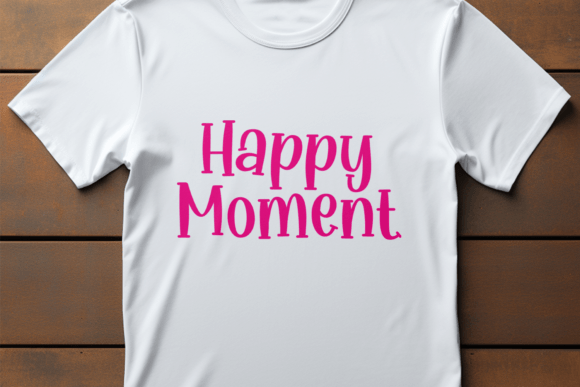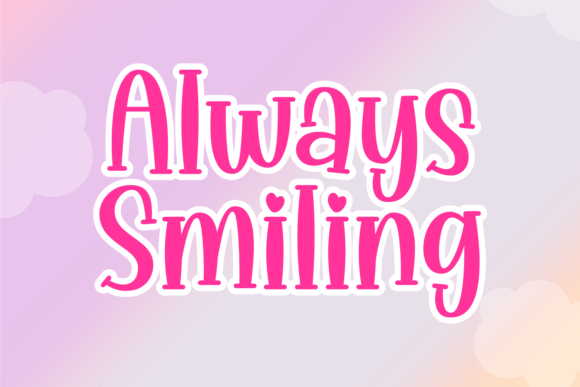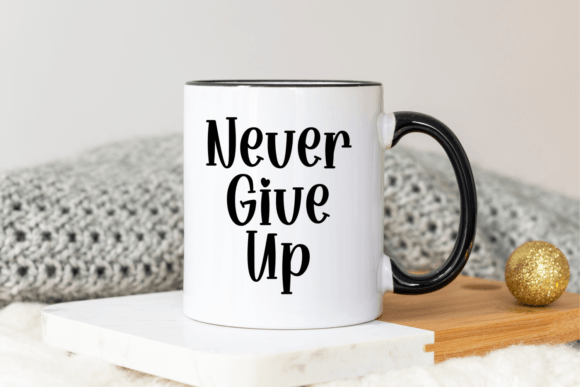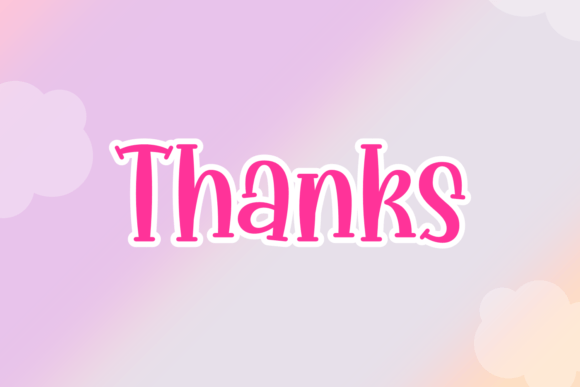
Introducing Beloved Herlynes Font: A Playful Handwritten Typeface for Creative Projects
Are you a designer, crafty person, or DIY enthusiast looking for a unique and playful font to elevate your creative projects? Look no further than the Beloved Herlynes font, a charming handwritten typeface that’s perfect for a wide range of applications. In this article, we’ll explore the features and benefits of Beloved Herlynes, and show you how it can help take your designs to the next level.
What is Beloved Herlynes Font?
Beloved Herlynes is a carefully crafted handwritten font that’s designed to add a touch of playfulness and personality to your designs. With its unique and quirky style, this font is sure to capture the attention of your audience and leave a lasting impression. Whether you’re working on a logo, product packaging, invitation, or any other creative project, Beloved Herlynes is the perfect choice.
Key Features of Beloved Herlynes Font
- Playful and Handwritten Style: Beloved Herlynes boasts a delightful handwritten style that’s perfect for adding a personal touch to your designs.
- Versatile and Adaptable: This font is suitable for a wide range of applications, including logos, product packaging, invitations, branding, headlines, signage, labels, book covers, posters, quotes, and more.
- Easy to Read and Understand: Despite its playful nature, Beloved Herlynes is remarkably legible, making it perfect for both digital and print applications.
Use Cases for Beloved Herlynes Font
Beloved Herlynes is an incredibly versatile font that can be used in a variety of creative projects. Here are some inspiring use cases to get you started:
- Logo Design: Create a memorable and eye-catching logo for your business or brand with Beloved Herlynes.
- Product Packaging: Add a touch of whimsy and charm to your product packaging with this delightful font.
- Invitations and Stationery: Design beautiful invitations, greeting cards, and stationery with Beloved Herlynes.
- Branding and Advertising: Use Beloved Herlynes to create engaging and effective branding and advertising materials.
- Book Covers and Posters: Create stunning book covers and posters with this playful font.
Benefits of Using Beloved Herlynes Font
So, why choose Beloved Herlynes for your creative projects? Here are just a few benefits of using this amazing font:
- Unique and Eye-Catching: Beloved Herlynes adds a touch of personality and whimsy to your designs, setting them apart from the crowd.